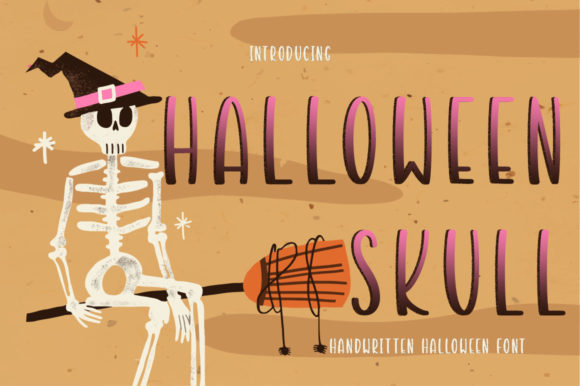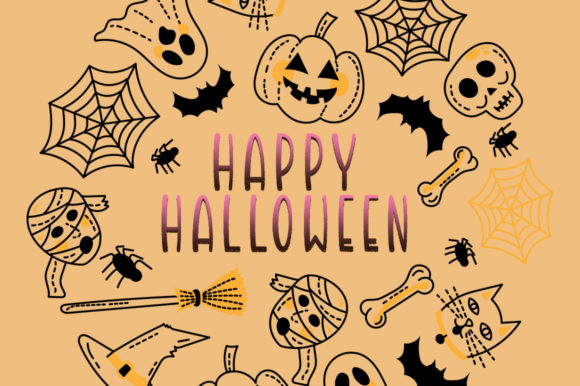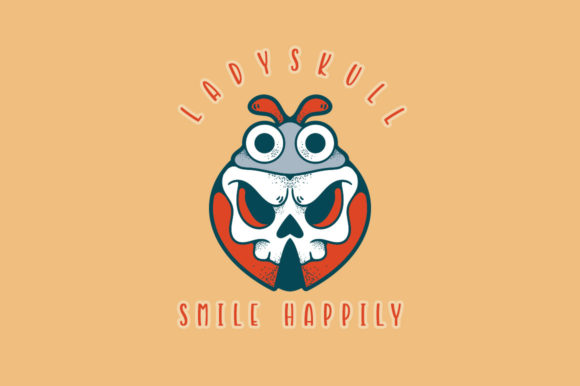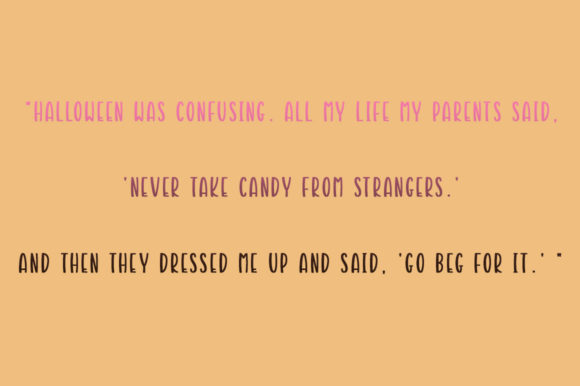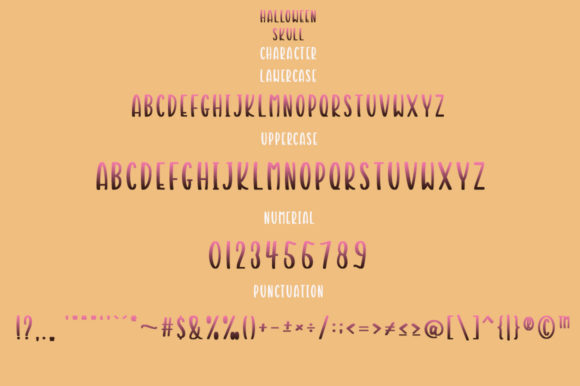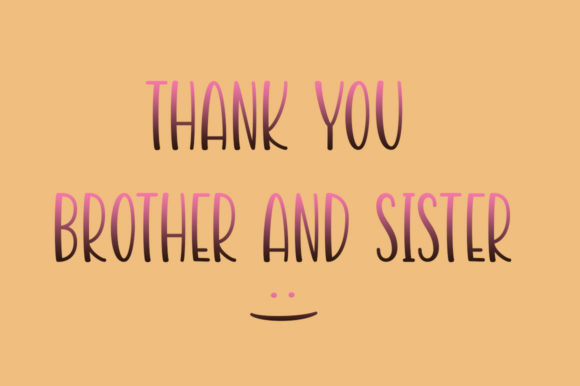
Halloween Skull Font
About Halloween Skull Font
Halloween skull is a cool, tall, and fun handwritten font. No matter the topic, this font will be an incredible asset to your fonts’ library, as it has the potential to elevate any creation.